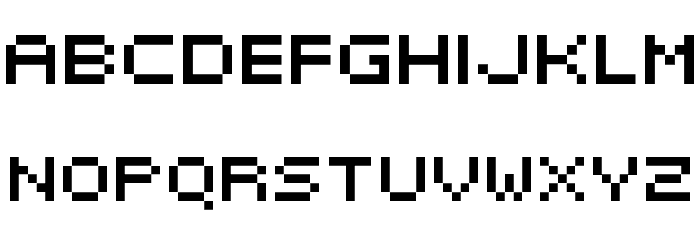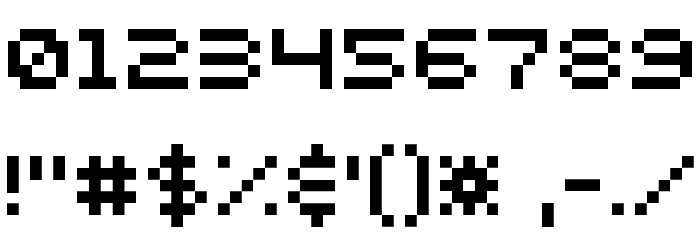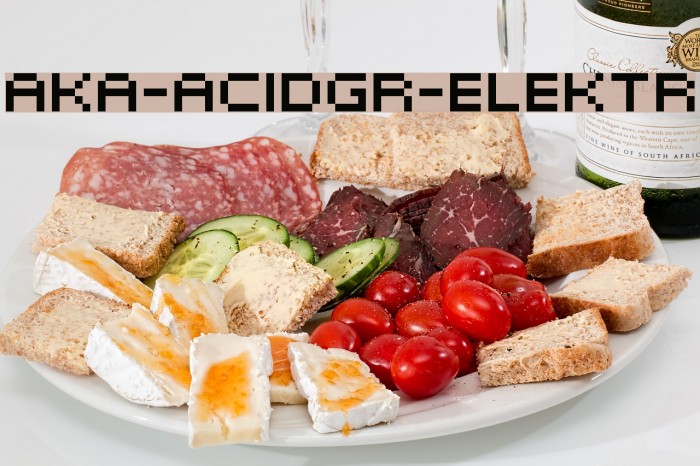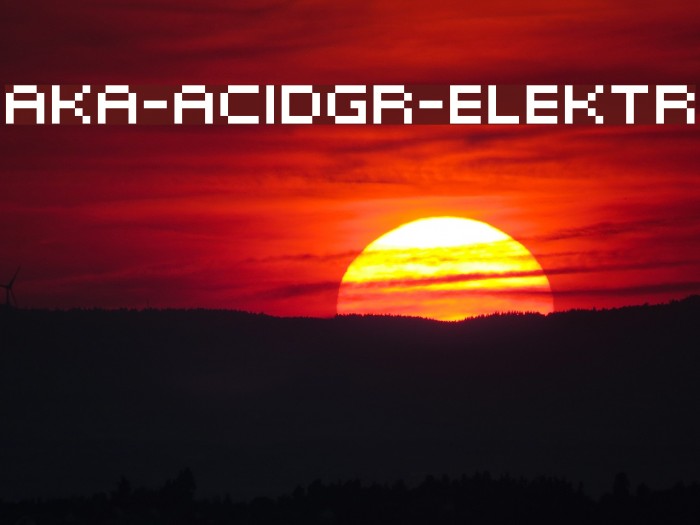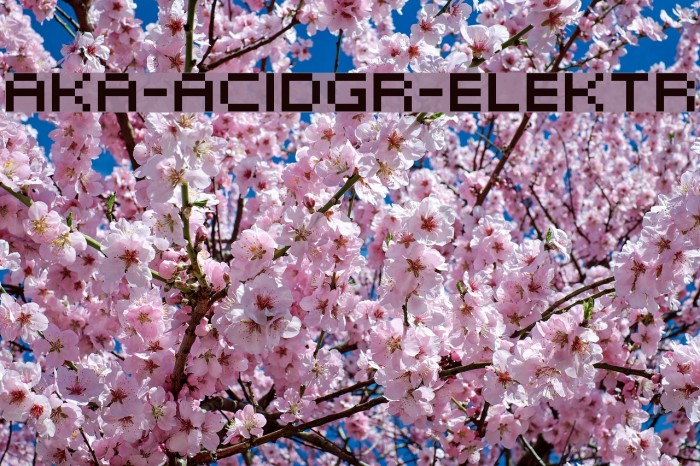
Aka-AcidGR-Elektr Font
This font features a pixelated, blocky design reminiscent of early digital displays and retro video games. Each character is composed of square pixels, giving it a distinctly digital and geometric appearance. The uniformity in the pixel size across all characters creates a cohesive and structured look. This style is highly legible and straightforward, with no curves or embellishments, making it ideal for conveying a sense of nostalgia or a tech-inspired aesthetic. The font's simplicity and clarity make it suitable for both uppercase and lowercase letters, as well as numbers and special characters.
A pixelated, blocky font with a retro digital aesthetic.
- Proposed Projects: Ideal for retro video game designs, tech-themed posters, digital art projects, and any creative work that requires a nostalgic digital feel.
- Overall Style: Retro, Digital
- Use Case: Headlines, Logos, Digital Art